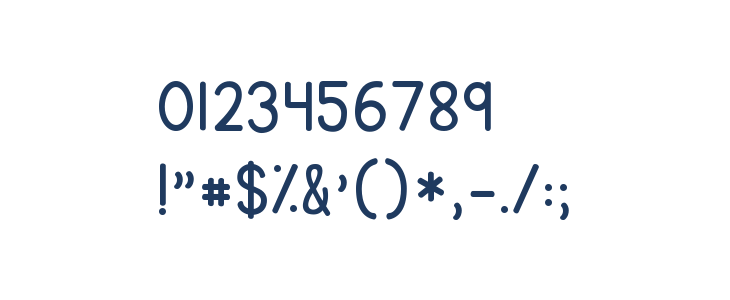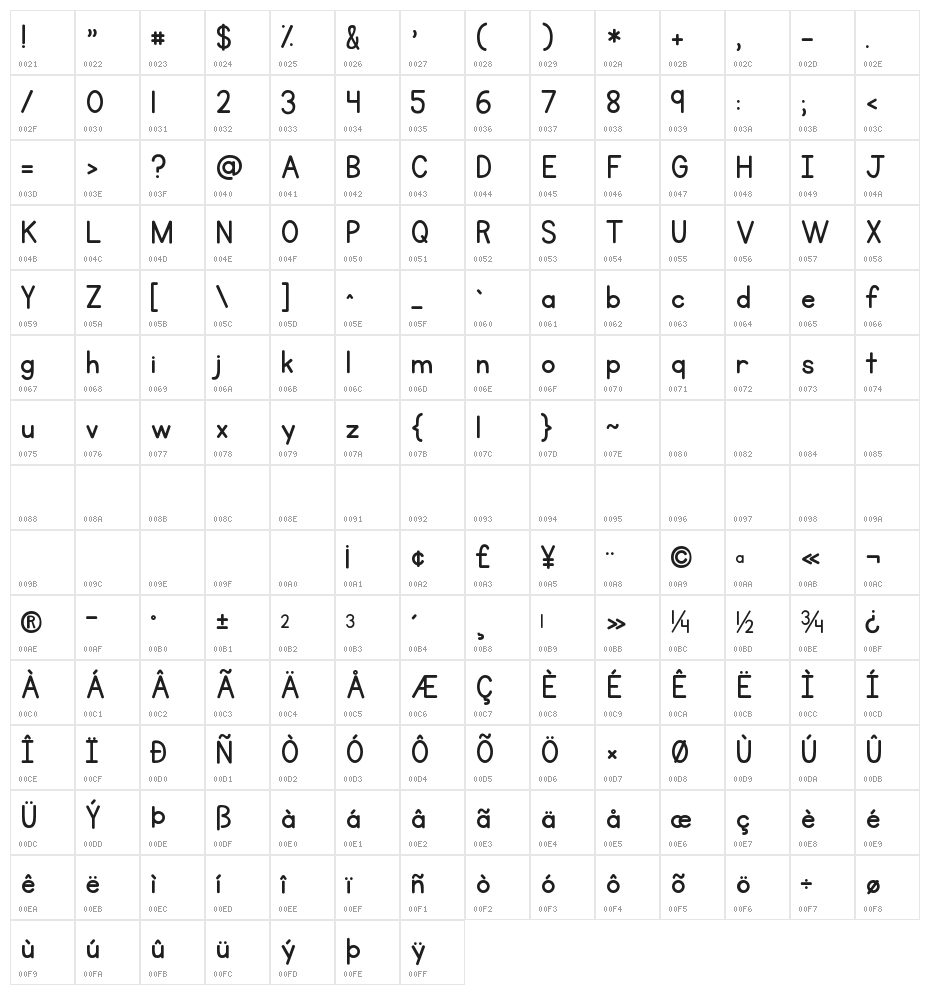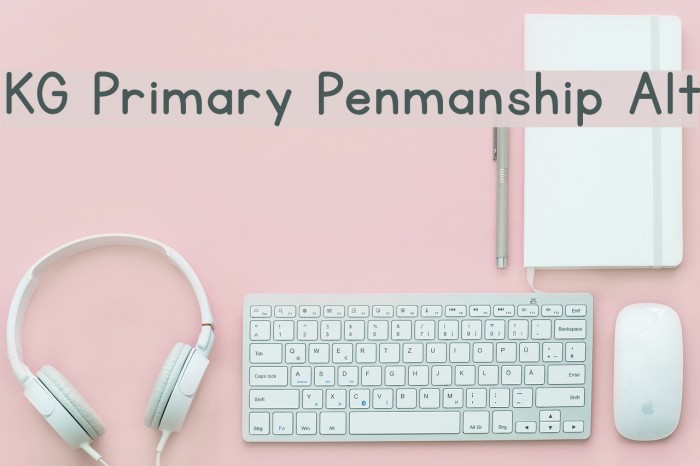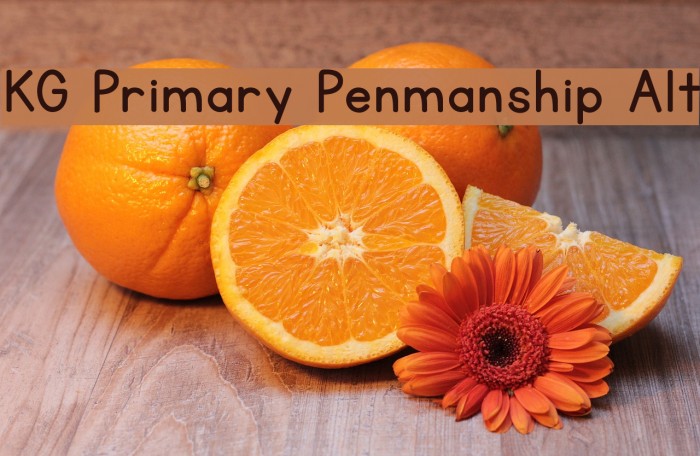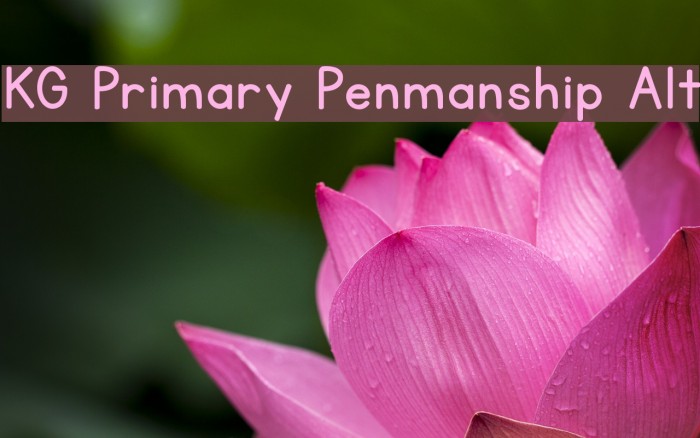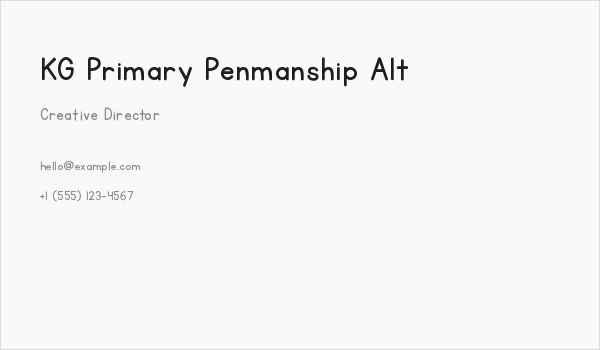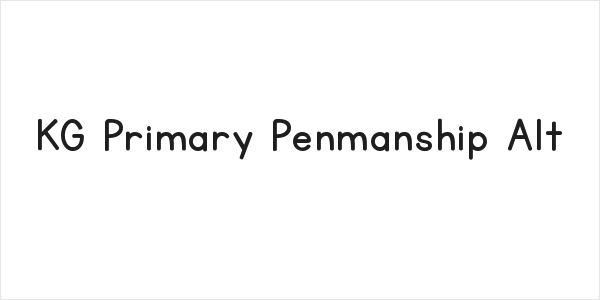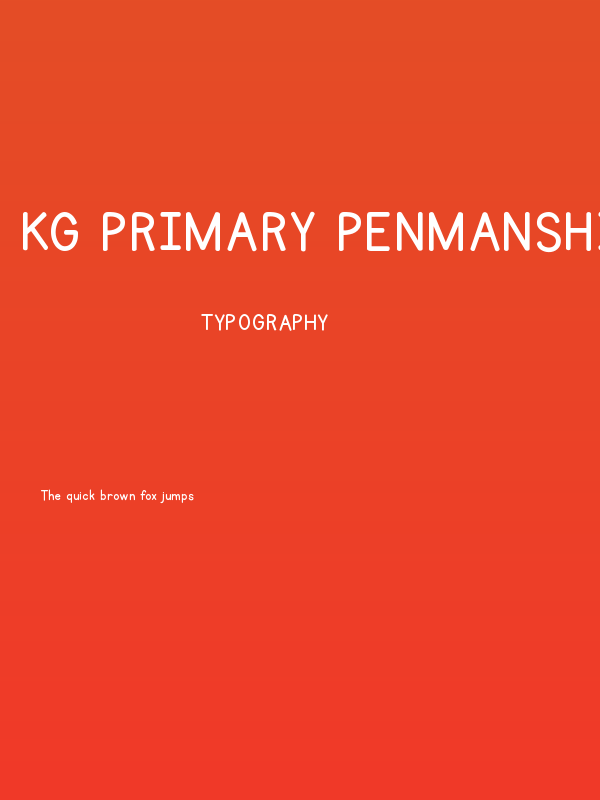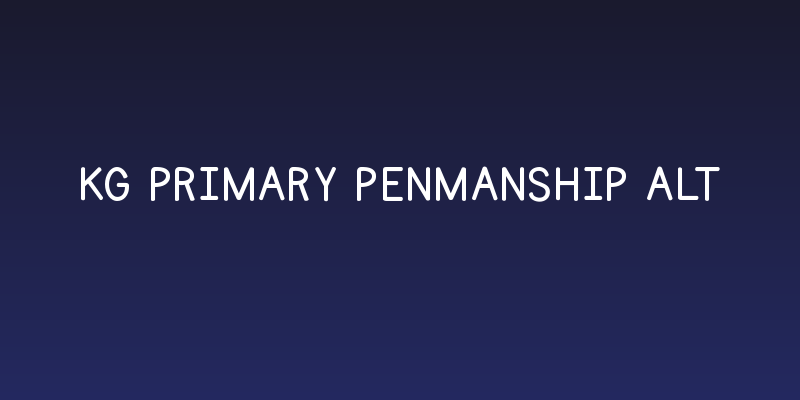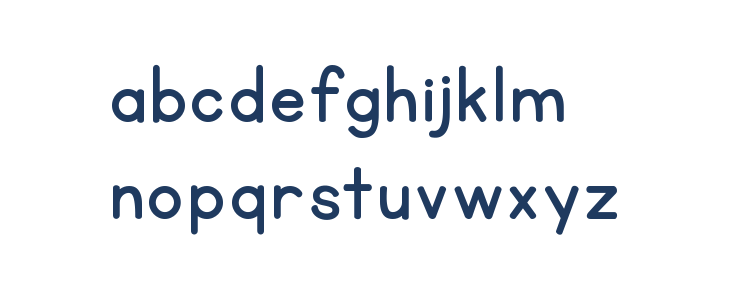
KG Primary Penmanship Alt Font
KG Primary Penmanship Alt Description
This font features a clean and simple design, reminiscent of handwriting taught in primary school. The characters are rounded and uniform, providing a friendly and approachable appearance. The uppercase and lowercase letters maintain consistent proportions, ensuring readability. The numbers and special characters follow the same style, making them easily recognizable. This font is ideal for educational materials, children's books, and any project that requires a playful yet legible typeface.
Overall StylePlayful
Use CaseHeadlines, Body text, Educational materials
Proposed ProjectsIdeal for educational materials, children's books, and playful designs.